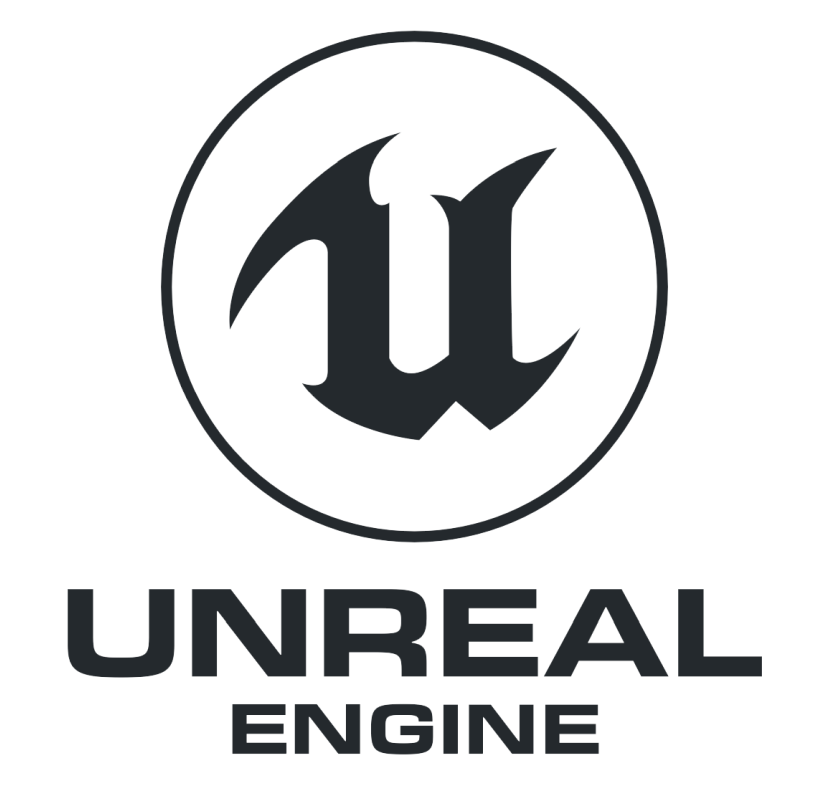
Unreal Engine Font
AnimationThe Unreal Engine is a widely-used game engine that allows for the creation of high-quality, visually stunning games across multiple platforms.
The logo for Unreal Engine is designed using Eurostile Std Bold Extended #2, created by Aldo Novarese. The "u" in the circle appears to be a custom design, but it closely resembles the title lettering found in Unreal video games.